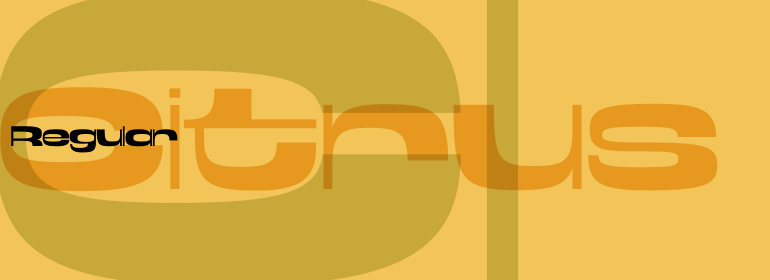
Citrus Font is a vibrant and refreshing typeface that exudes a lively and playful energy, often characterized by its clean lines and fresh aesthetic. It's perfectly suited for projects that aim to convey cheerfulness, modernity, and a touch of organic simplicity, such as fresh food branding, health and wellness promotions, children's products, and engaging social media graphics. Imagine Citrus Font gracing the packaging of a natural juice brand, adding a zesty punch to a summer event poster, or bringing a clean and inviting feel to a healthy recipe blog. Its bright and approachable character ensures your message is conveyed with both clarity and an undeniable sense of optimism, making it ideal for designs that aim to feel light, airy, and full of life.
What makes Citrus Font truly exciting is its ability to infuse designs with a sense of energy and wholesome appeal. This font often features rounded edges, playful ligatures, or a slightly handcrafted touch that gives it a unique and friendly personality. It's an excellent choice for designers looking to create a fresh, clean, and inviting visual experience. Citrus Font isn't just about conveying words; it’s about adding a significant artistic component that enhances the overall mood and message of your design, making it perfect for projects that demand a youthful, energetic, and clean aesthetic.
Citrus Font typically comes with a versatile family to provide flexibility for various design applications. This usually includes a range of weights such as regular, bold, and sometimes a light version, often accompanied by corresponding italic versions. Depending on its design, it might also offer alternative characters or ligatures that enhance its playful and organic feel. This extensive Citrus Font Free Download family ensures you have the tools to create cohesive and dynamic designs, allowing for consistent branding and powerful visual communication across all your platforms, from digital displays to printed materials, all while maintaining its signature fresh appeal.